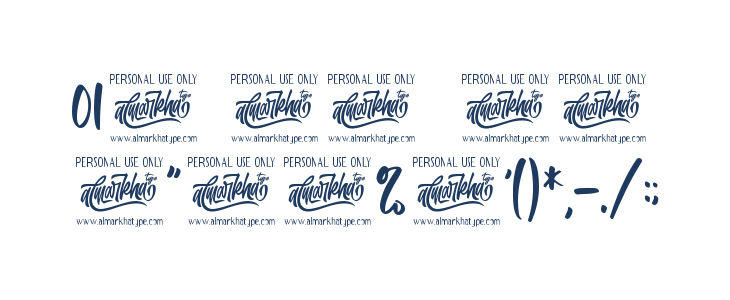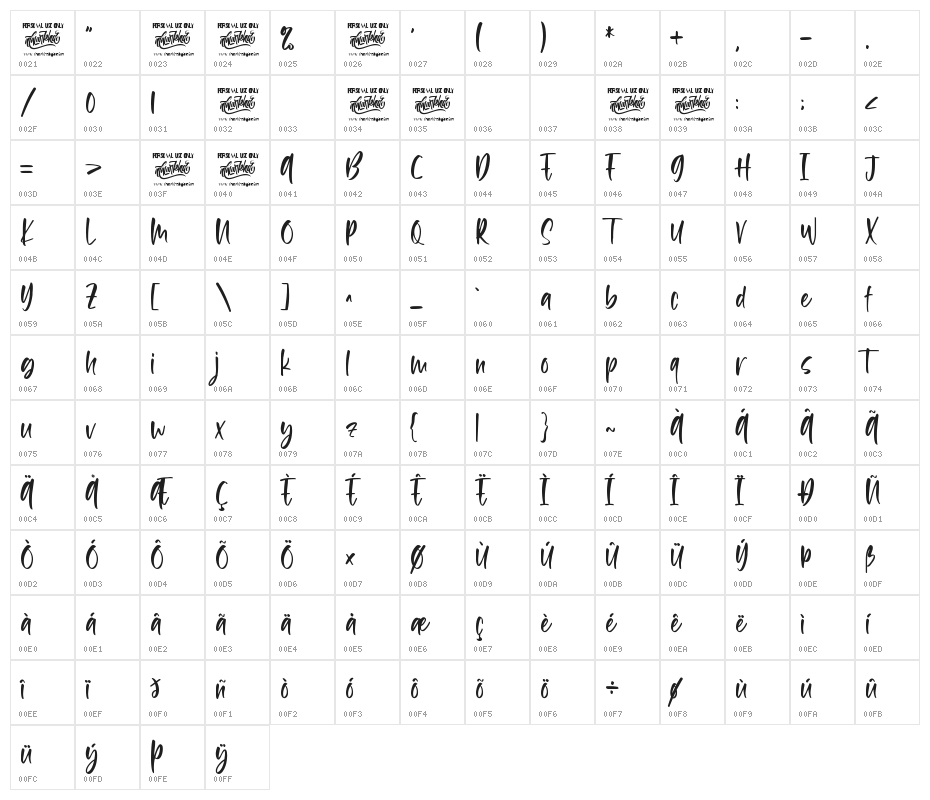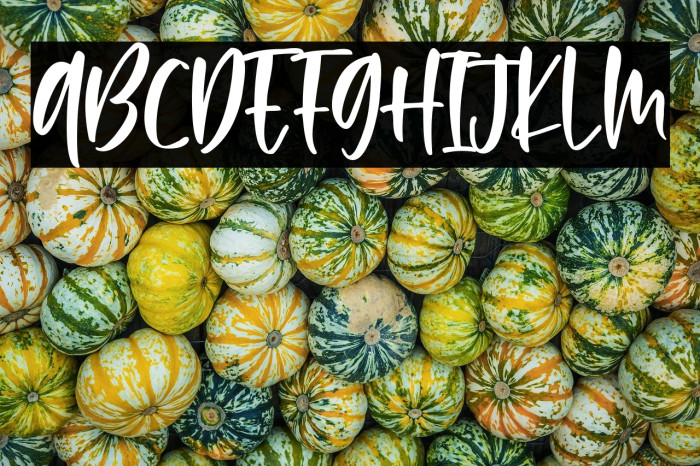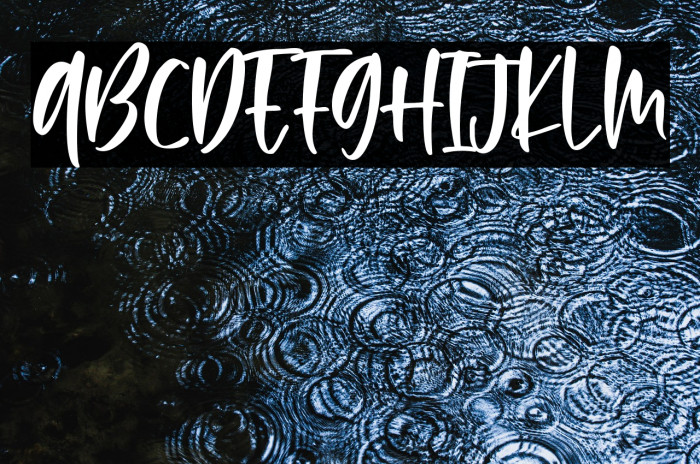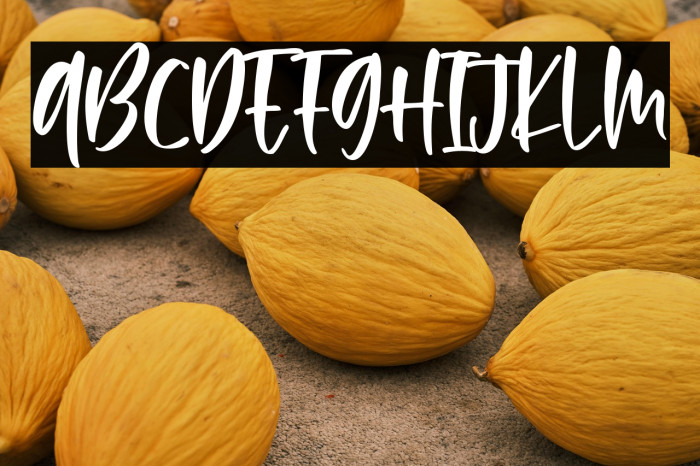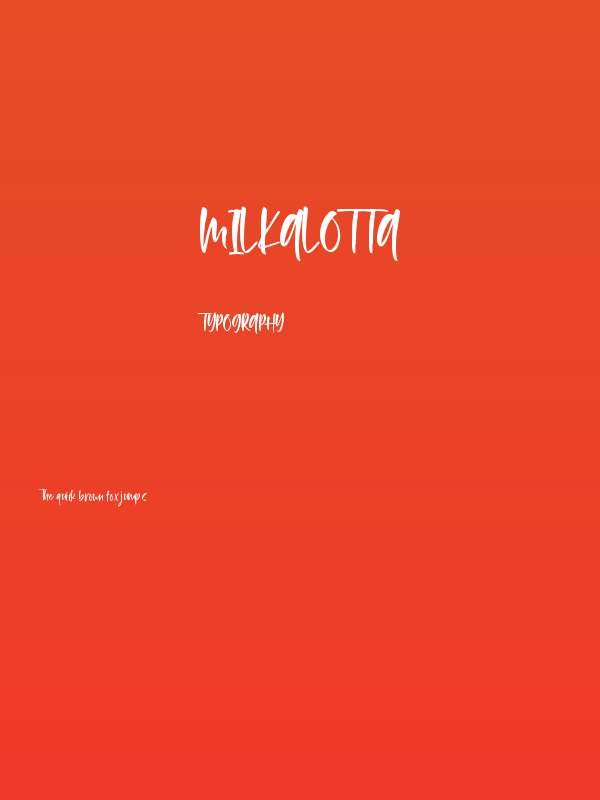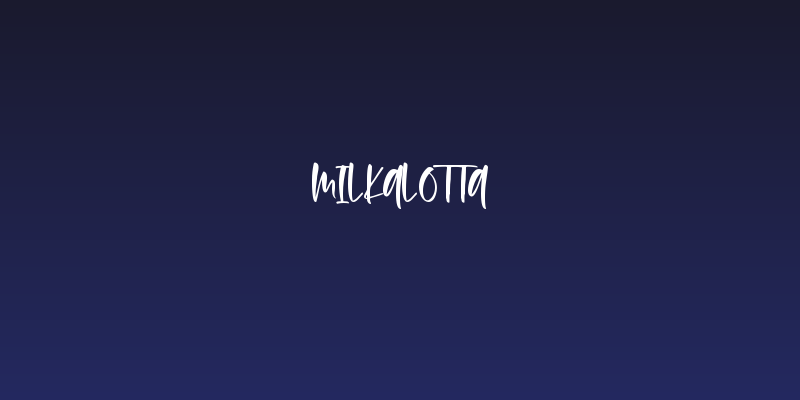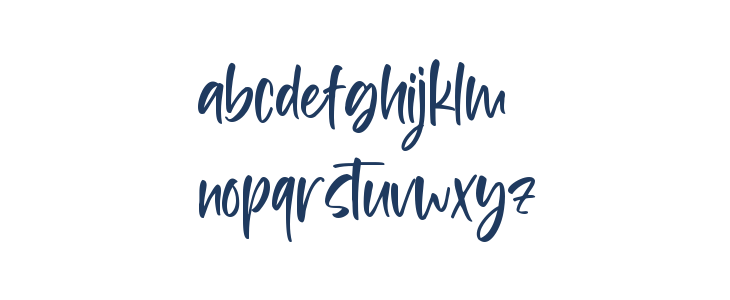
Milkalotta Font
Milkalotta Description
This font exudes a lively and energetic handwritten style, characterized by its fluid and dynamic strokes. The letters are bold and slightly slanted, giving a sense of motion and spontaneity. The uppercase and lowercase letters maintain a consistent style, with playful loops and curves that add a touch of whimsy. The numbers and special characters follow the same aesthetic, ensuring a cohesive look across all text elements. The overall design is modern and expressive, making it suitable for projects that require a personal and informal touch.
| Use Case | Logos, Headlines, Social Media Graphics |
| Proposed Projects | Ideal for greeting cards, social media graphics, personal branding, and creative projects that require a playful and informal touch. |